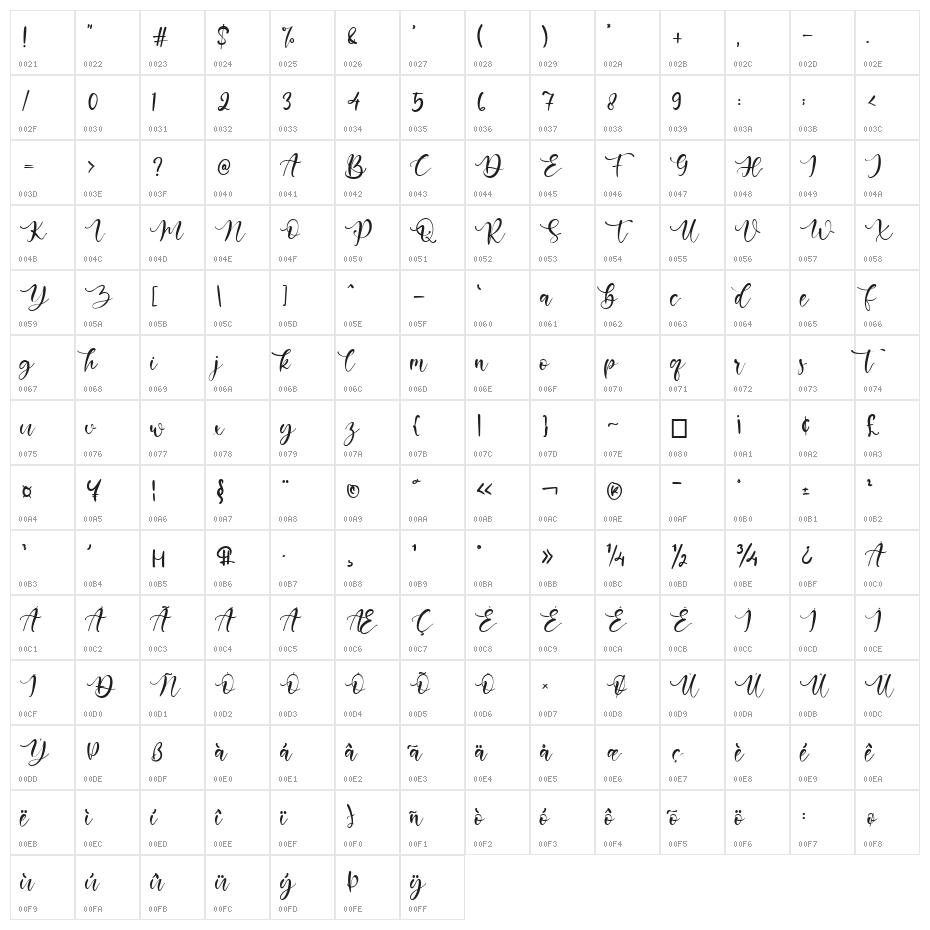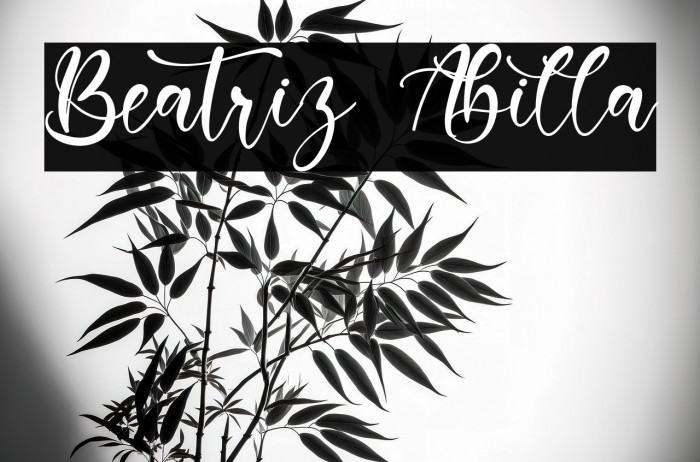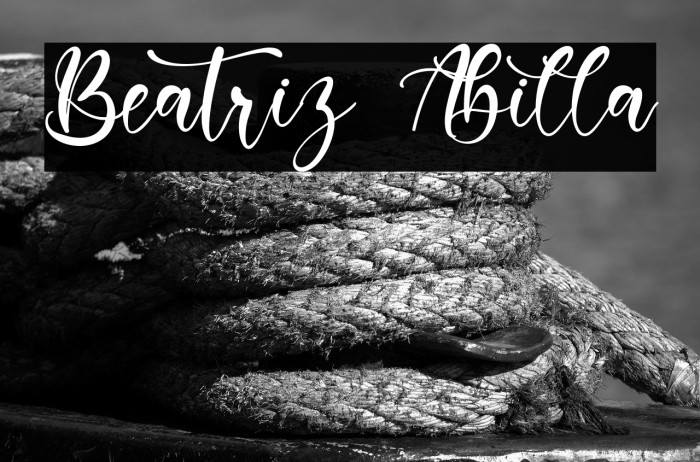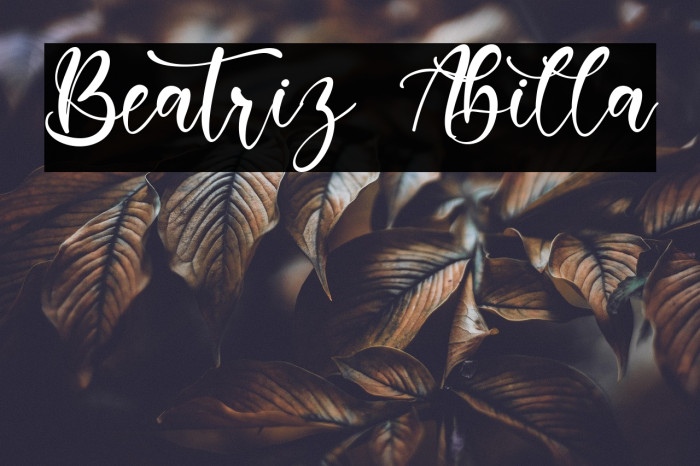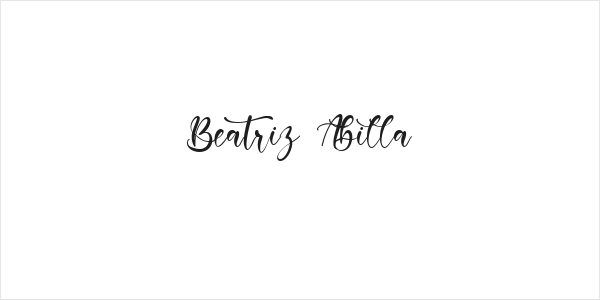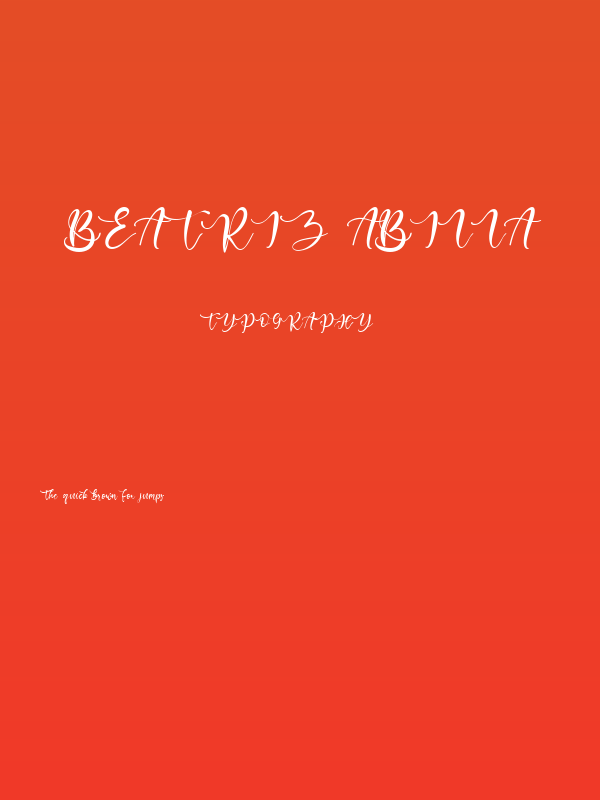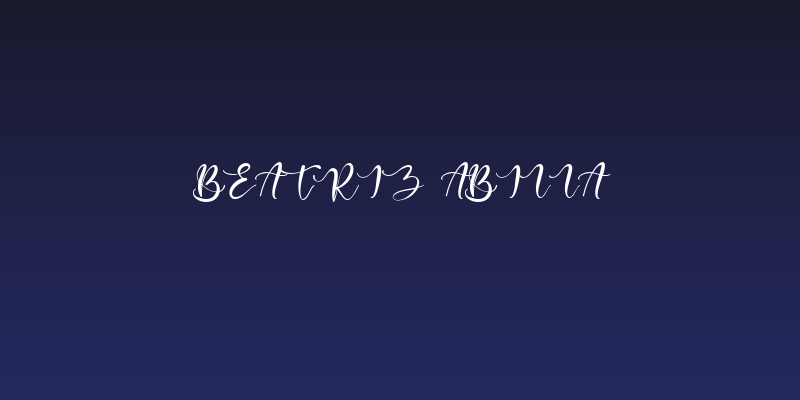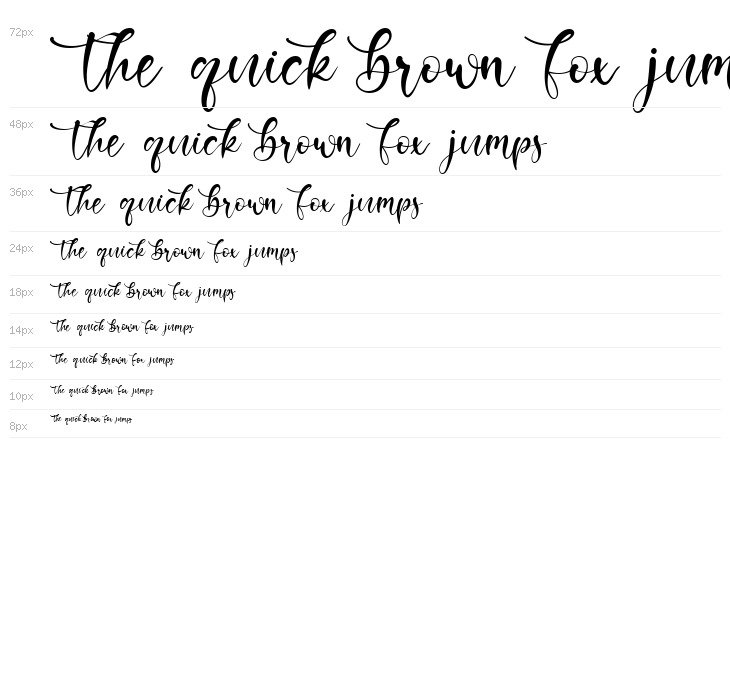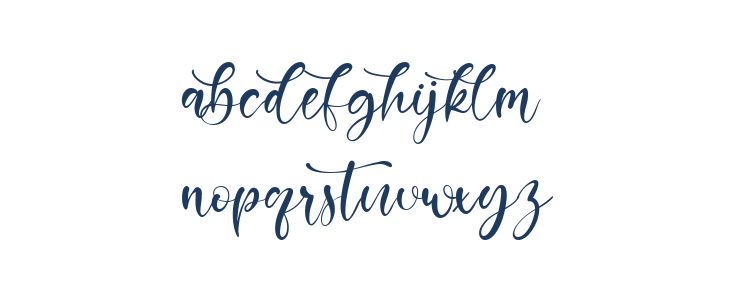
Beatriz Abilla Font
Beatriz Abilla Description
This font features an elegant and flowing script style, characterized by its smooth, cursive letterforms that exude a sense of sophistication and grace. The uppercase letters are ornate, with intricate loops and swashes that add a decorative flair, while the lowercase letters maintain a consistent fluidity, enhancing readability. The numerals are styled to match the script's aesthetic, offering a cohesive look across all characters. Special characters and punctuation are thoughtfully designed to complement the overall style, making this font versatile for various creative applications.
| Overall Style | Elegant, Decorative |
| Proposed Projects | Ideal for wedding invitations, branding, greeting cards, and elegant packaging designs. |